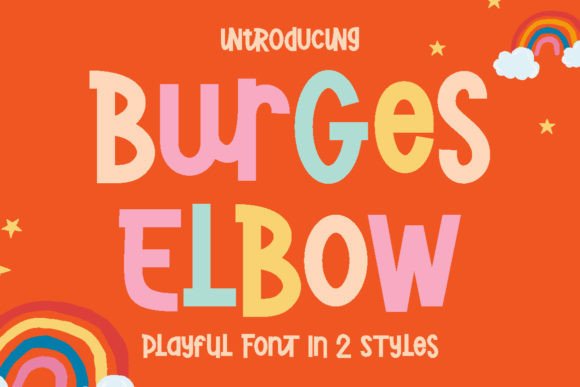
Burger Elbow Font: A Playful Typeface to Bring Joy to Your Designs
The world of typography is vast and diverse, offering a multitude of font styles to suit various design needs. Among these, the Burger Elbow font, also known as Burges Elbow, stands out for its playful and whimsical nature. This font is specifically designed to infuse happiness and joy into any project, making it an ideal choice for designers looking to add a touch of fun and quirkiness to their work.
What is Burges Elbow Font?
Burges Elbow is a playful font created with the intention of spreading joy and happiness through its unique and quirky design. This font comes in two styles, offering versatility and flexibility for various design applications. Its distinctive features make it a perfect fit for projects aimed at a younger audience or those that require a sense of fun and whimsy.
Key Features of Burges Elbow Font
- Playful and Quirky Design: Burges Elbow boasts a unique and playful design that can add a touch of fun to any project.
- Two Styles: This font comes in two styles, providing designers with options for different design requirements.
- PUA Encoded: Burges Elbow is PUA encoded, making it easy to access all the amazing glyphs and ligatures.
Use Cases for Burges Elbow Font
The playful and quirky nature of Burges Elbow makes it suitable for a variety of design projects. Here are some use cases where this font can shine:
Designs for Children
- Book Covers: Burges Elbow can add a touch of fun and playfulness to children’s book covers, making them more appealing to young readers.
- Posters and Flyers: This font can be used to create eye-catching posters and flyers for children’s events, workshops, or activities.
Branding and Marketing
- Younger Audience: Burges Elbow is perfect for branding aimed at a younger audience, as it can help create a fun and playful image.
- Product Branding: This font can be used for products that want to add a sense of fun and whimsy to their brand identity.
Benefits of Using Burges Elbow Font
Using Burges Elbow font offers several benefits, including:
Advantages of Burges Elbow
- Unique Design: Burges Elbow offers a unique and distinctive design that can help your project stand out.
- Versatility: This font comes in two styles, making it versatile for different design applications.
- Easy to Use: Burges Elbow is PUA encoded, making it easy to access all the glyphs and ligatures.
Tips for Using Burges Elbow Font Effectively
To get the most out of Burges Elbow font, here are some tips:
Best Practices for Using Burges Elbow
- Pair with Other Fonts: Experiment with pairing Burges Elbow with other fonts to create a unique and visually appealing design.
- Use for Headings: Use Burges Elbow for headings and titles to add a touch of fun and playfulness to your design.
- Experiment with Colors: Try out different colors and color combinations to make your design more vibrant and engaging.
In conclusion, Burges Elbow font is a playful and quirky typeface that can add a touch of fun and joy to any design project. Its unique design, versatility, and ease of use make it an ideal choice for designers looking to create engaging and visually appealing designs. Whether you’re working on a project for children or want to add a sense of fun and whimsy to your branding, Burges Elbow is a great option to consider.